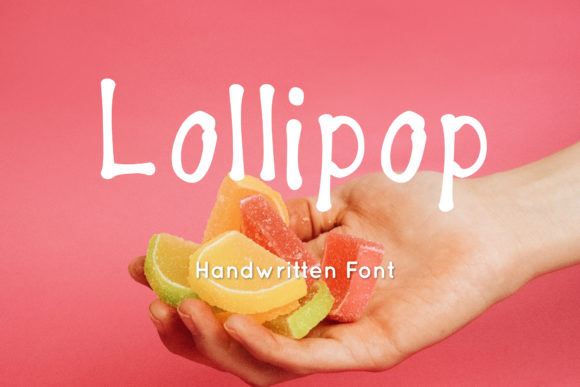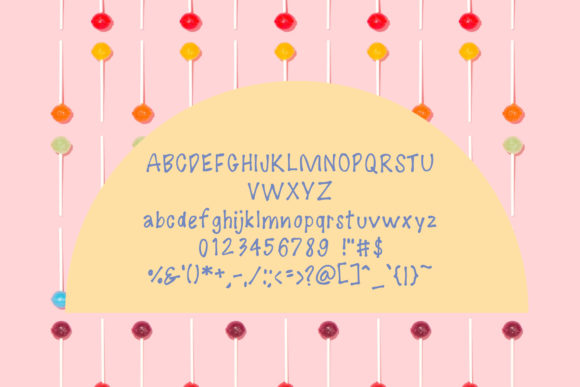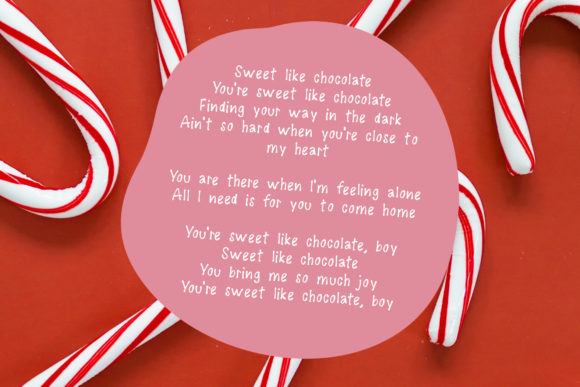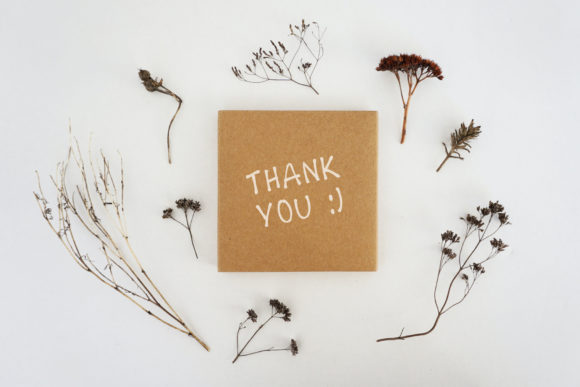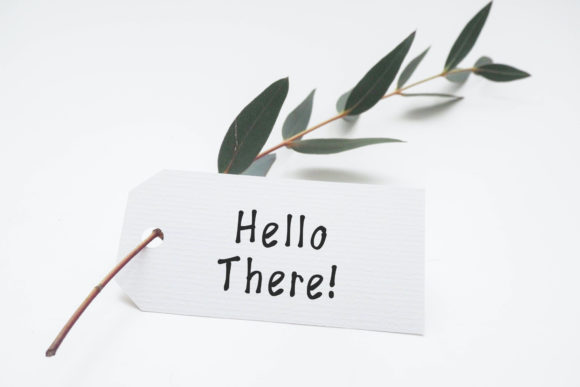
Lollipop Font
About Lollipop Font
Lollipop is a sweet and friendly handwritten font. Its natural and unique style makes it incredibly fitting to a large pool of designs. The only limit is your imagination!